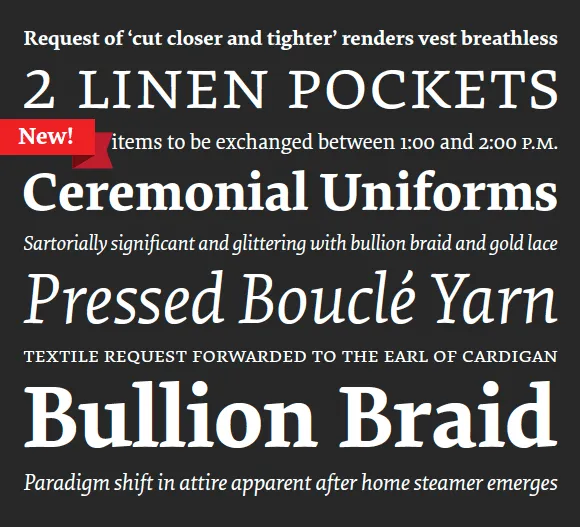
Elena specimen
We’re pleased to announce the long-awaited release of Elena from type designer and Process Type Foundry partner Nicole Dotin. Designed specifically for text and extended reading, Elena is a contemporary text face well suited for magazines, books and editorial design. Pairing the inspiration of the broad-nibbed pen with a desire for a modern page color, Elena is a face of economical proportions, moderate x-height and spare details.
Available in Regular and Bold with accompanying Italics, each style of Elena is replete with the necessary features one would expect for proper text work like small caps, case sensitive forms and a diverse range of numeral styles including those specifically for small caps. Basic versions start at $39 and full versions at $75.